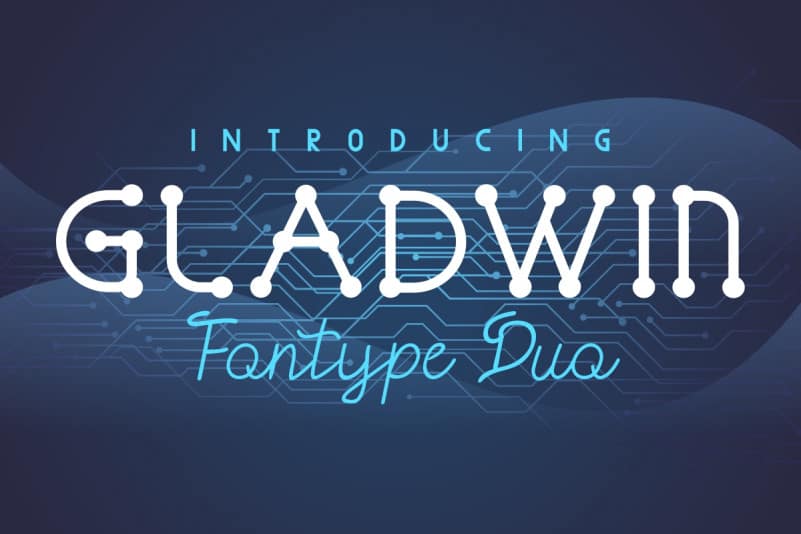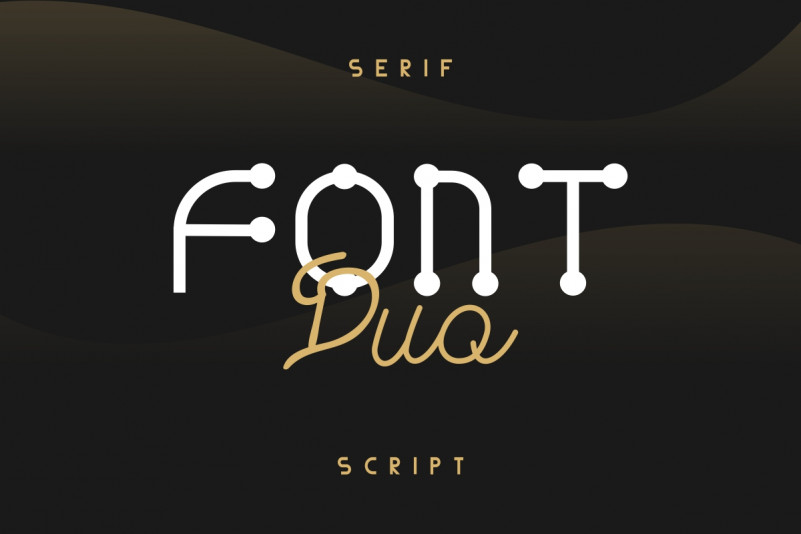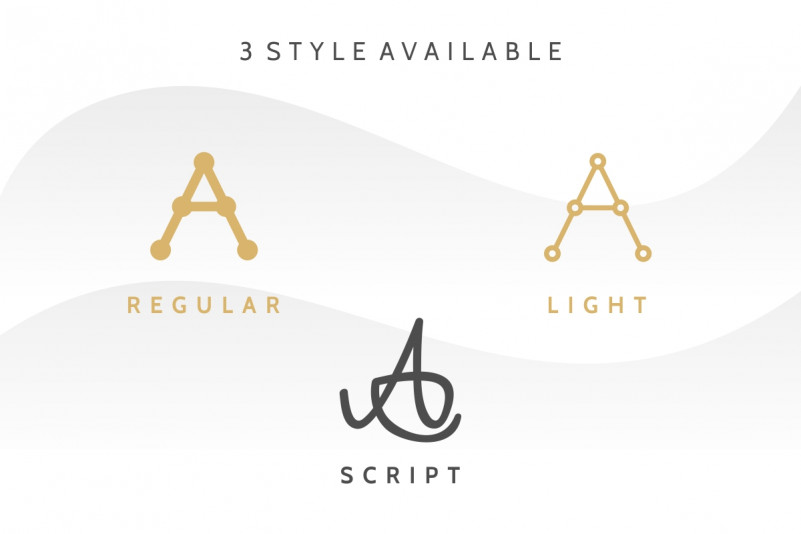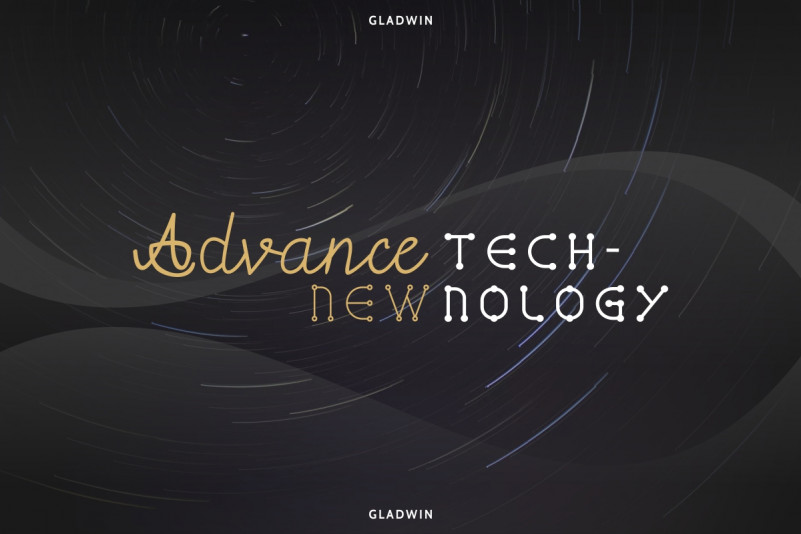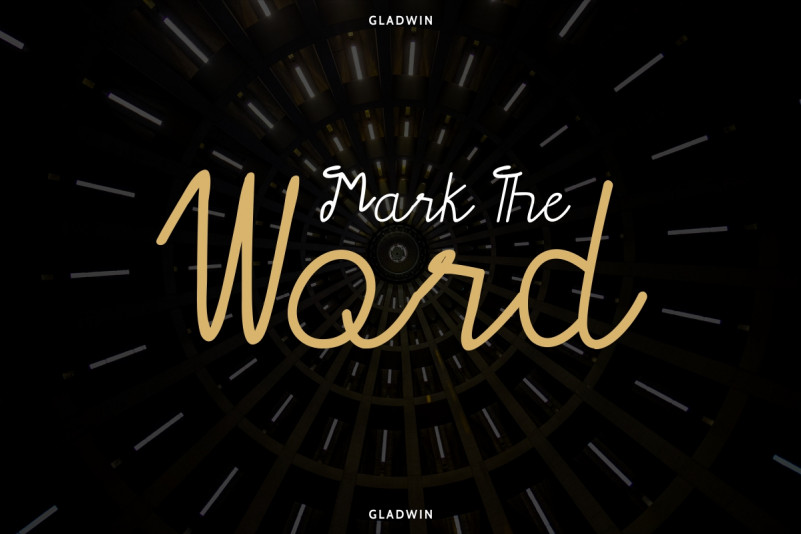
Gladwin Font Duo
Hello Everyone! Introducing our newest font : Gladwin Font Duo! It’s a duo style : Dots neon and Script handwriting. Great for branding, logo, stationery, business card, signage, flyer, brochure, neon, glowing, network, connection etc. There are many industries that is suitable for this font : startup, electricity, internet agency, technology company, computer, hardware, software, apps etc
Gladwin Script Style Font Duo